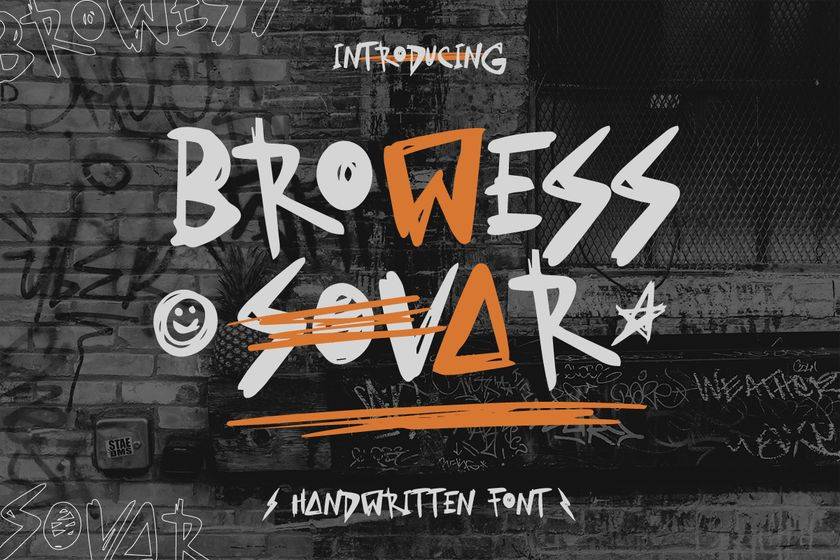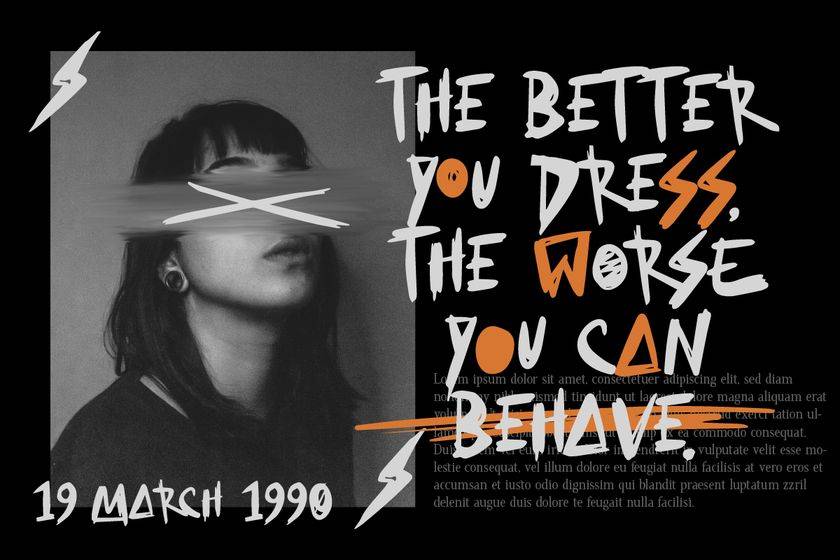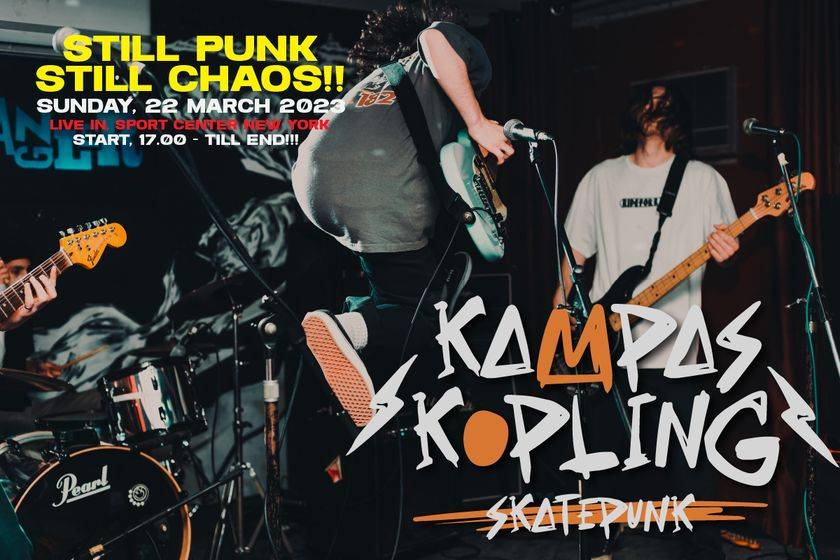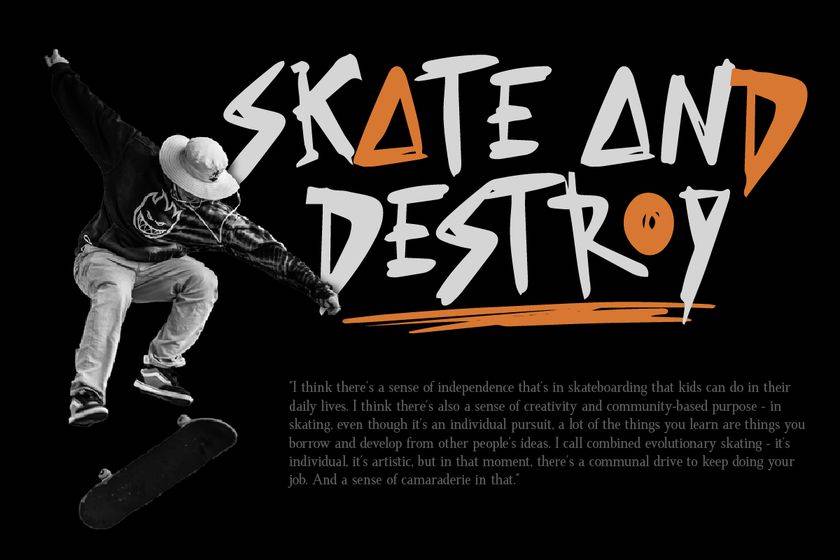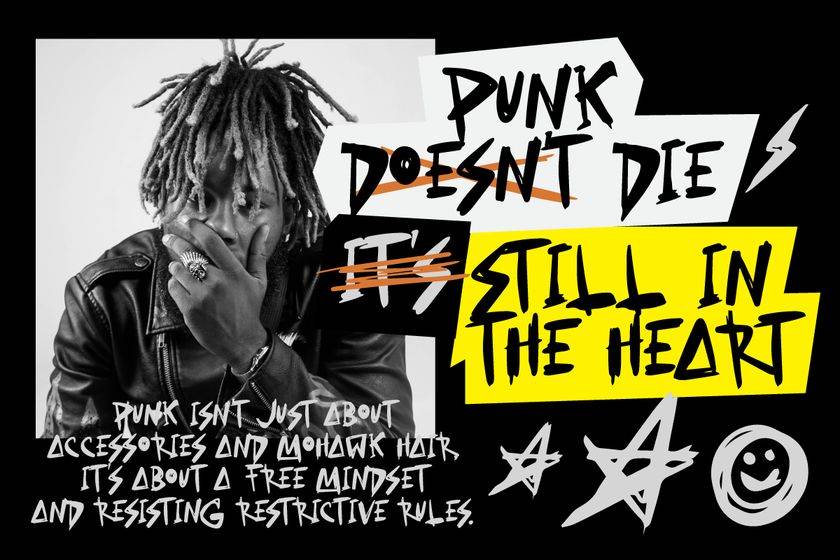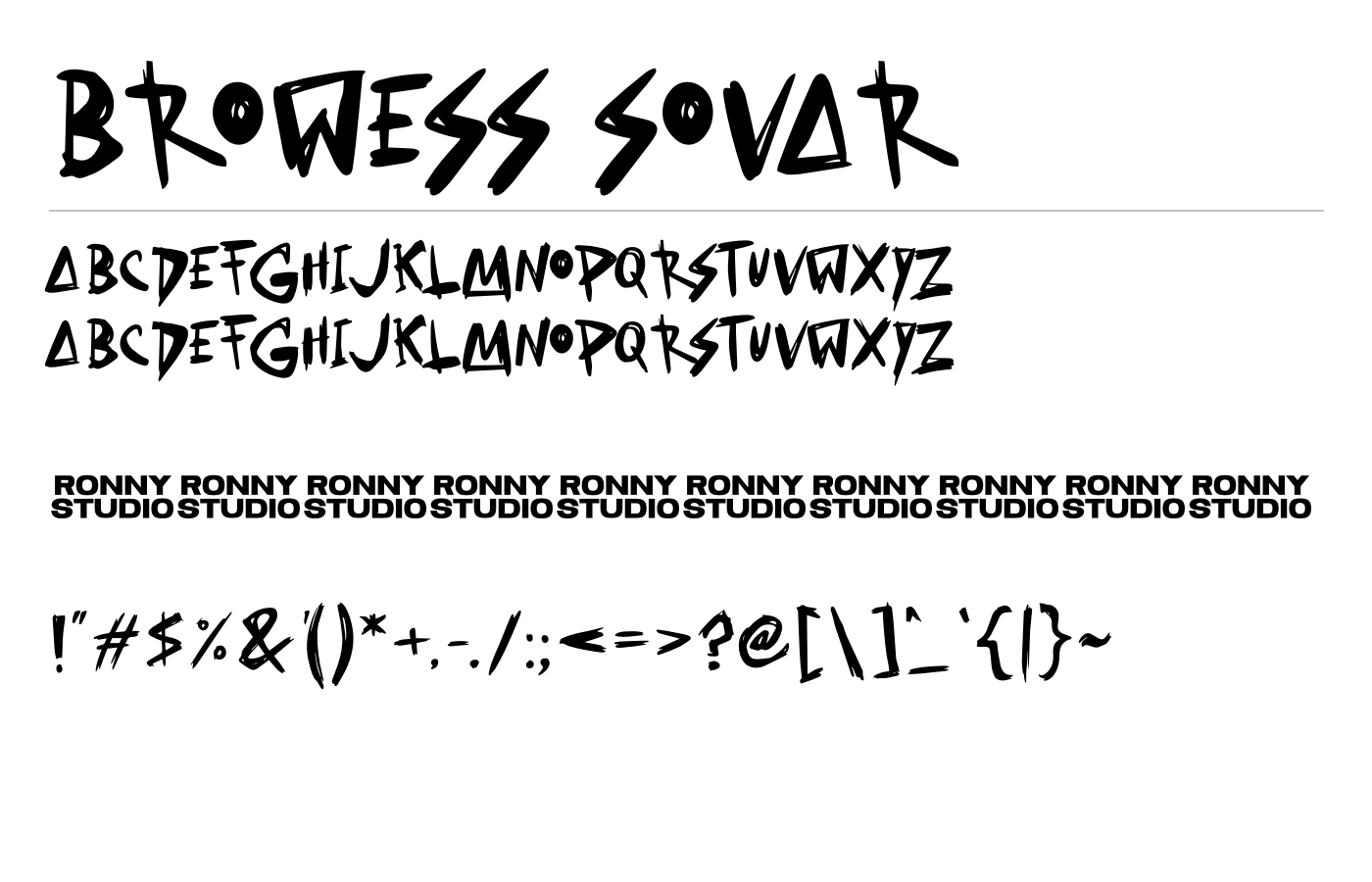
Browess Sovar is a bold, hand-drawn display font with a dynamic, edgy style that feels playful and rebellious. Its irregular shapes and strong strokes create a raw, artistic vibe, making it ideal for creative projects, posters, and brands seeking a unique, informal expression. This font stands out in headlines or logos where personality and impact are key.
Browess Sovar Font